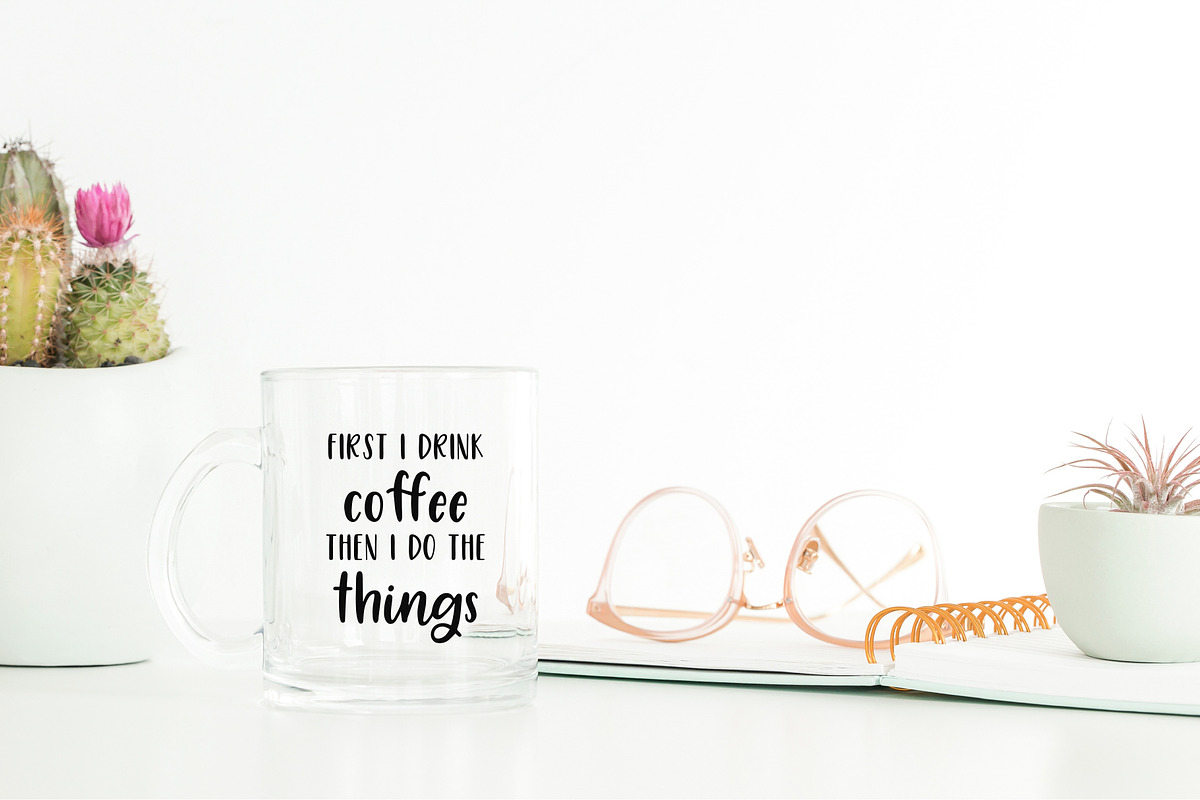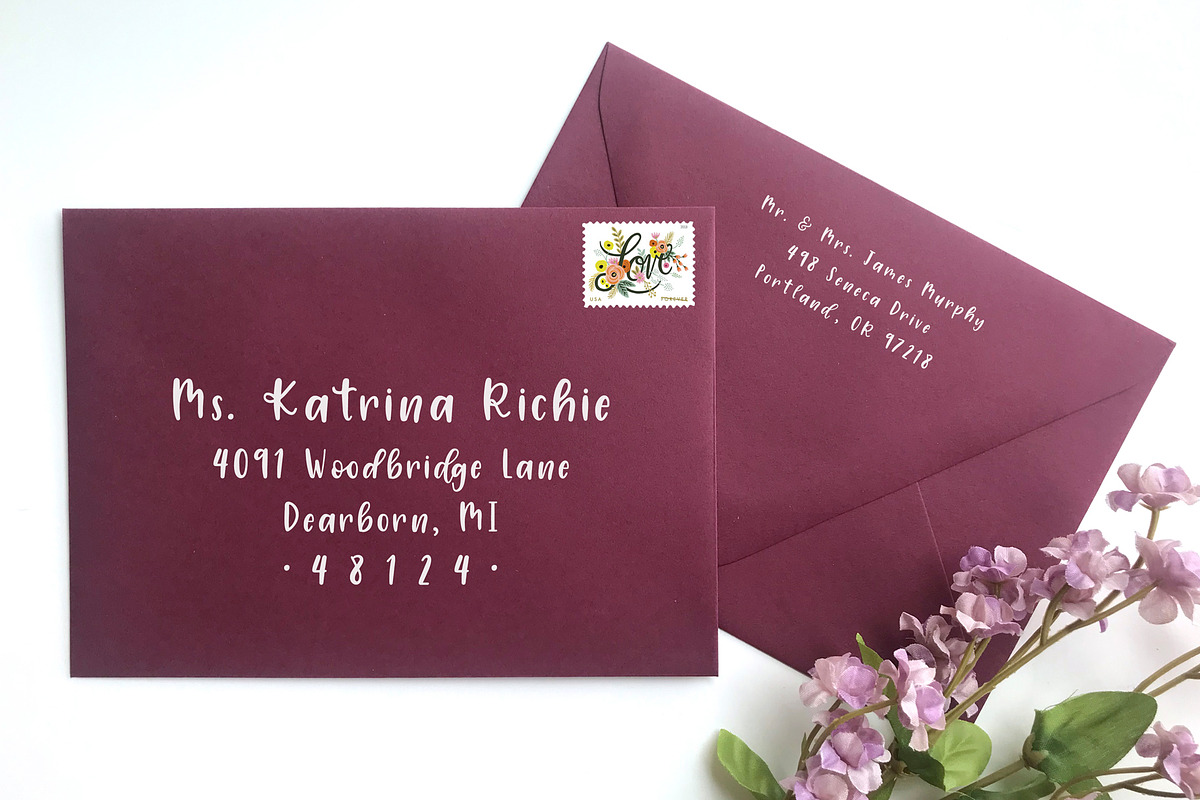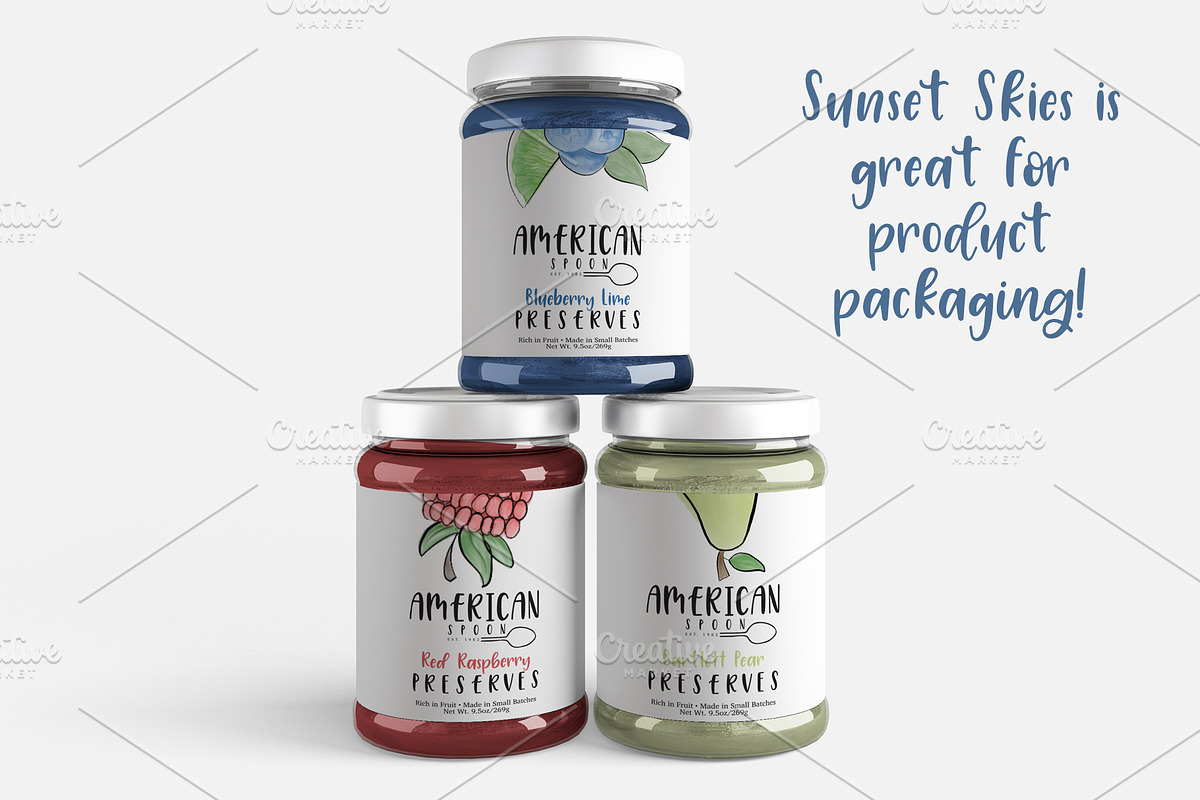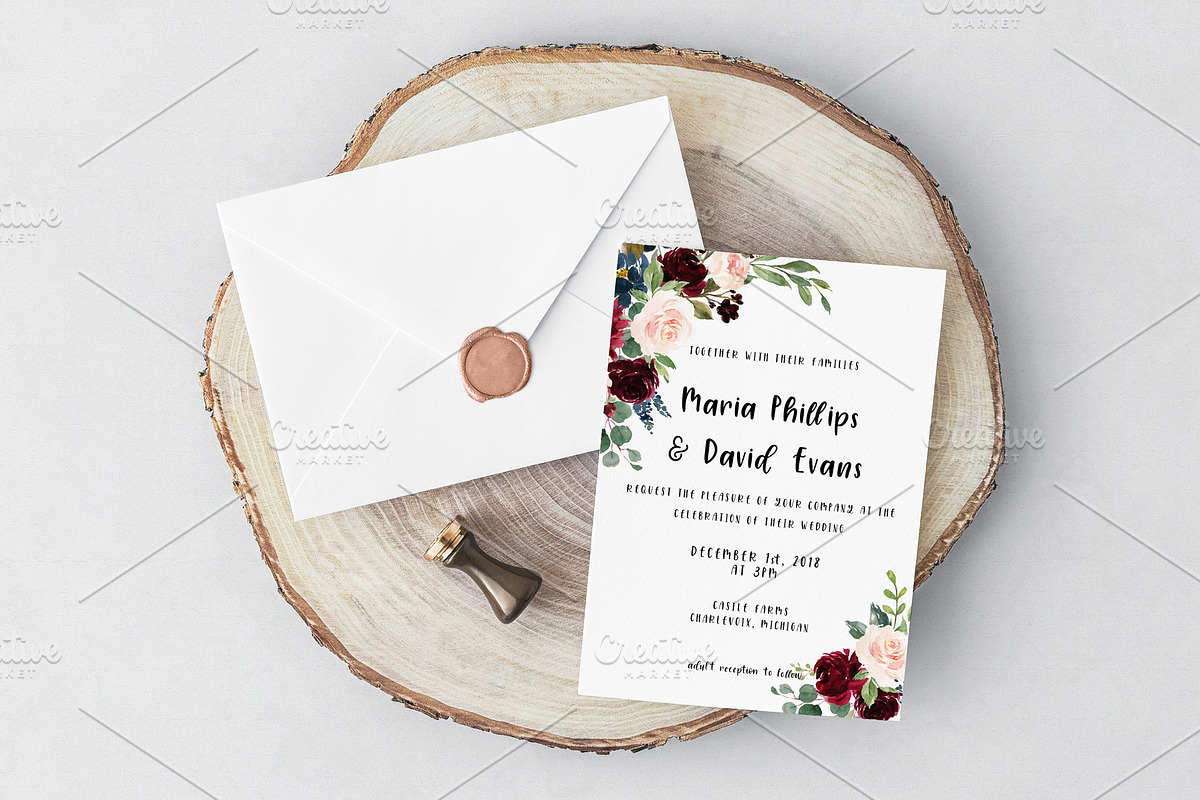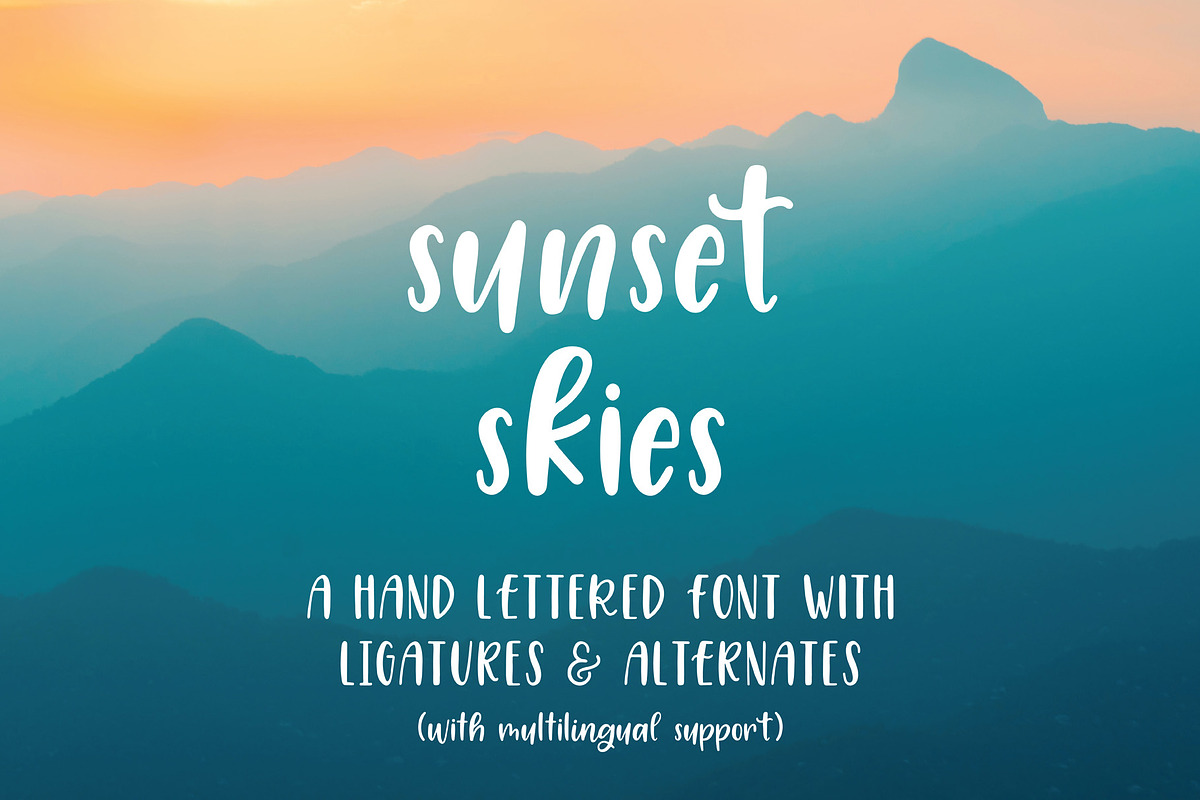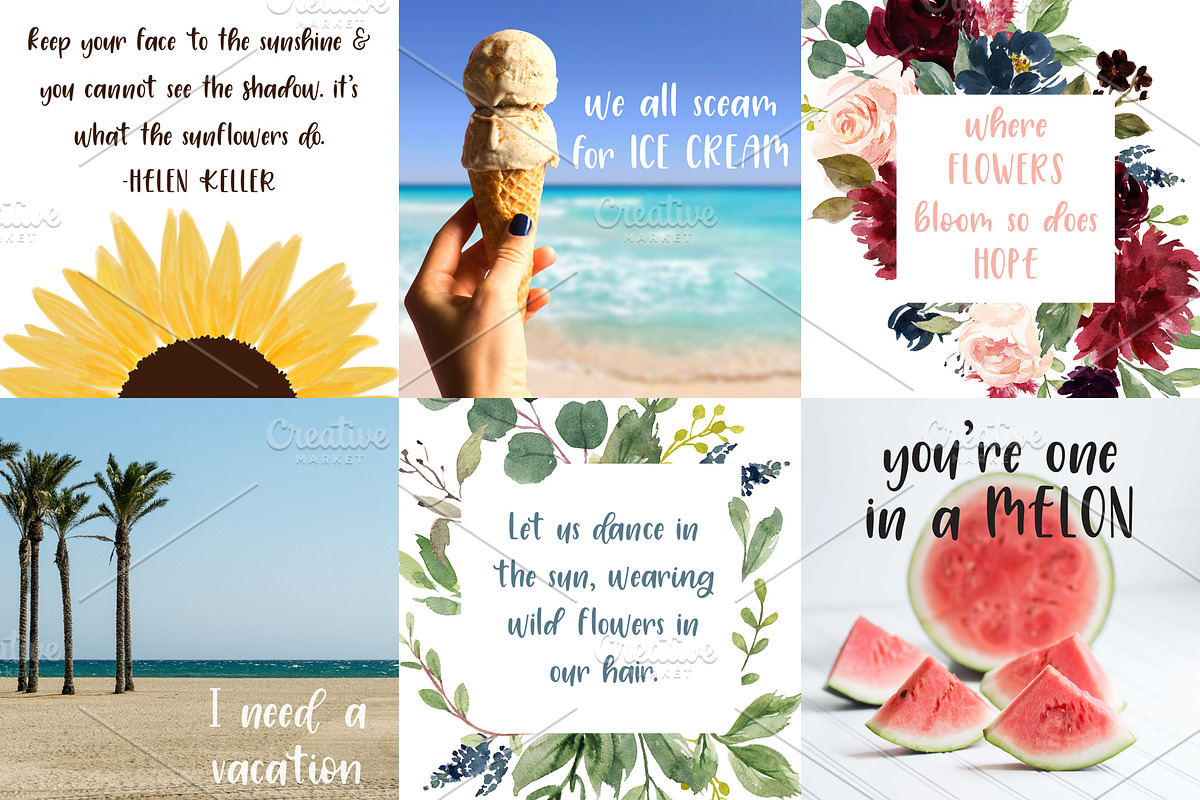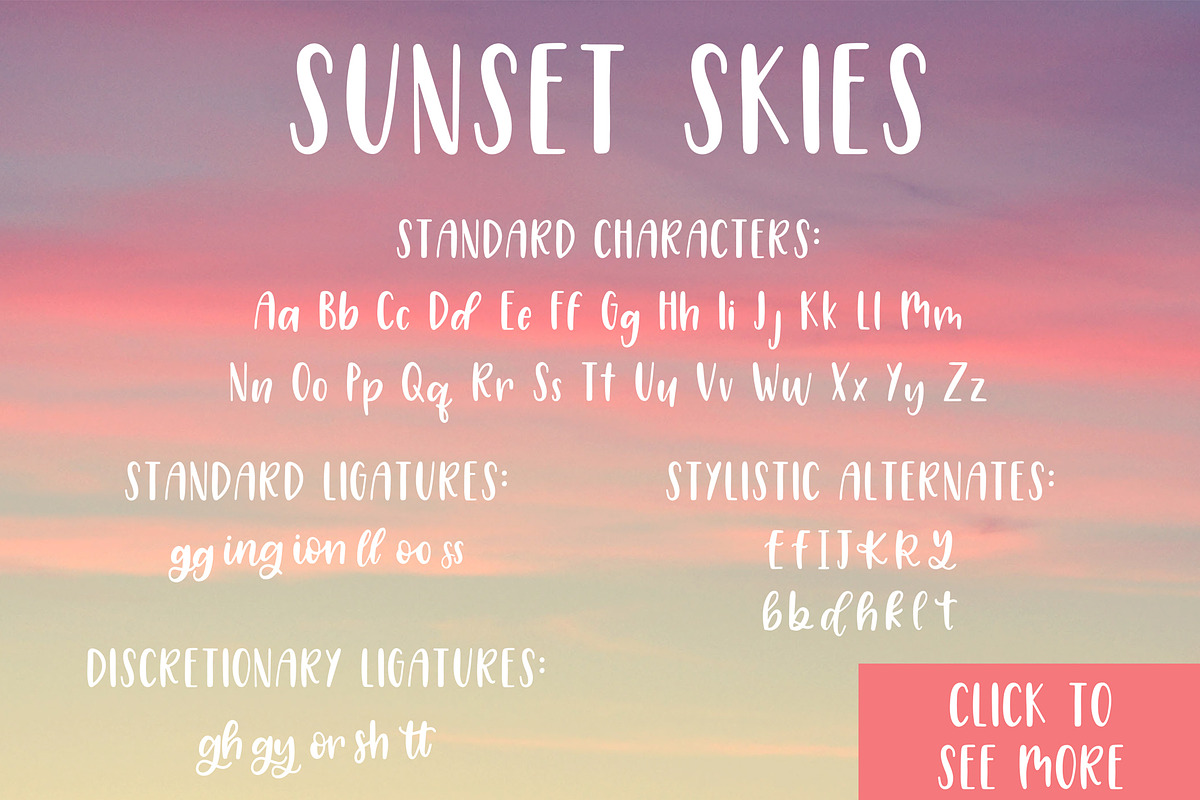
Sunset Skies Hand Lettered Font
Sunset Skies is a fresh, hand lettered font!
Sunset Skies font features:
Full set of uppercase letters
Full set of lowercase letters
14 stylistic alternates
5 discretionary ligatures
Multilingual support for the following languages: Danish, Dutch, Filipino, French, German, Indonesian, Irish, Italian, Spanish, and more!
- Full set of uppercase letters
- Full set of lowercase letters
- Numbers & Punctuation
- 6 ligatures
- 14 stylistic alternates
- 5 discretionary ligatures